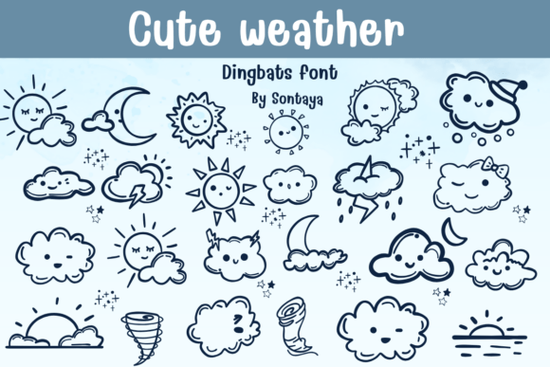
Looking for a fun and stylish way to add some personality to your designs? The Cute Weather Font is a versatile choice that brings a playful touch to any project. Whether you're creating social media graphics, printables, or branding materials, this font offers a unique blend of charm and clarity. With support for multiple formats like OTF, TTF, ProcreateFont, and Affinity Designer, it’s easy to integrate into your workflow no matter what tools you use.
The Cute Weather Font includes a range of elements such as coloring outlines, dingbats, doodles, and cartoon-style icons. These features make it ideal for designers who want to add visual interest without relying on complex illustrations. It's also perfect for crafters and small businesses looking to create eye-catching packaging or promotional materials. The font’s friendly aesthetic can help convey warmth and approachability in your work.
What Makes This Font Unique?
One of the standout features of the Cute Weather Font is its mix of typography and illustration. Instead of just text, you get a set of symbols and shapes that can be used to enhance your designs. For example, the dingbats and doodles can serve as decorative elements or visual separators in layouts. This makes it a great option for those who want to create cohesive, themed projects without needing to source additional graphics.
Who Can Benefit from This Font?
Designers, crafters, and creative hobbyists will find the Cute Weather Font to be a valuable addition to their toolkit. Its playful style is well-suited for projects targeting a younger audience or those with a whimsical theme. Small businesses looking to stand out in a competitive market can use the font to create logos, banners, or marketing materials that feel fresh and original.
For print-on-demand sellers, the font’s versatility means it can be used across a wide range of products, from t-shirts and mugs to calendars and stationery. The inclusion of coloring outlines allows for easy customization, making it a favorite among those who sell digital art or printable templates. The font’s clear legibility ensures that it remains functional even when used in smaller sizes or on textured surfaces.
How to Use the Cute Weather Font Effectively
To get the most out of the Cute Weather Font, consider pairing it with simple, clean backgrounds to let the design elements shine. Avoid overcrowding your layout with too many symbols or text, as this can reduce readability. Instead, use the font to highlight key points or add a touch of personality to your work.
Experiment with different color combinations to match your brand or project theme. The font works well with pastel shades, bright hues, and even monochrome schemes. If you’re using it in a digital format, try adjusting the spacing or size to see how it looks in various contexts. This will help you understand how best to apply it in your specific design needs.
Whether you're designing for personal use, a small business, or a creative project, the Cute Weather Font offers a fun and functional way to express your style. Its combination of typography and illustration makes it a standout choice for anyone looking to add a little extra flair to their work.